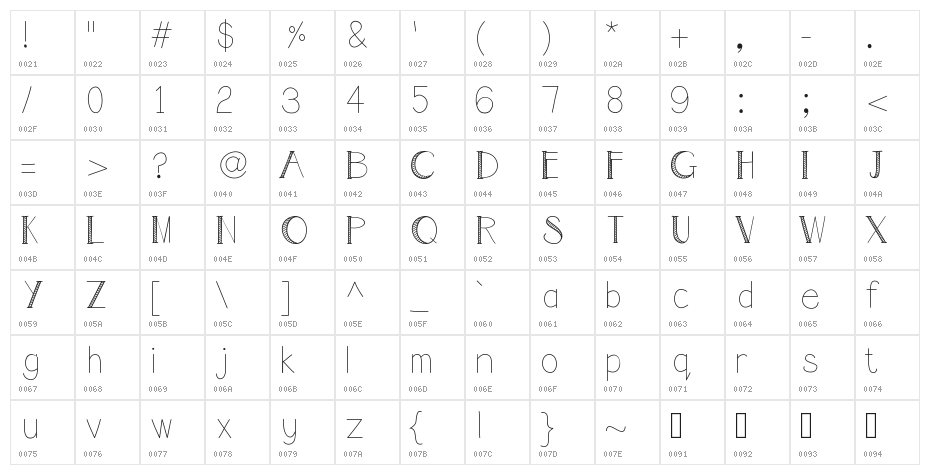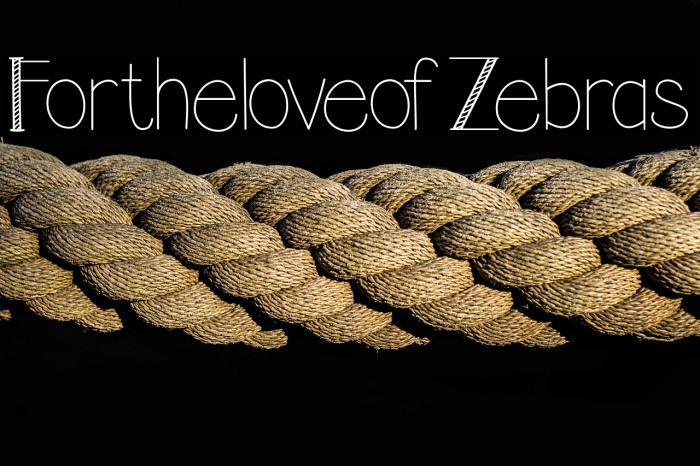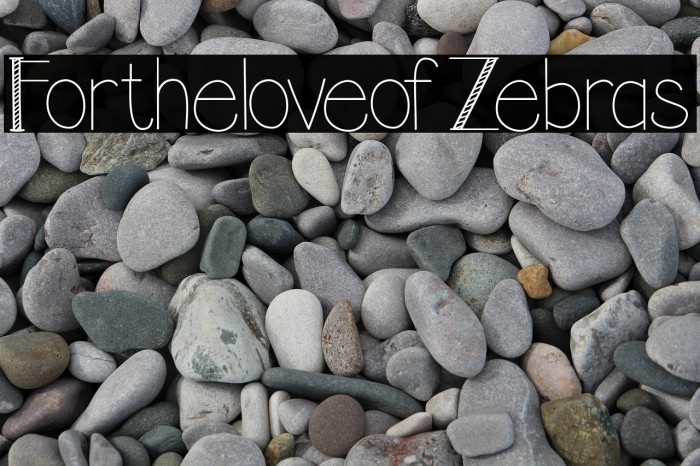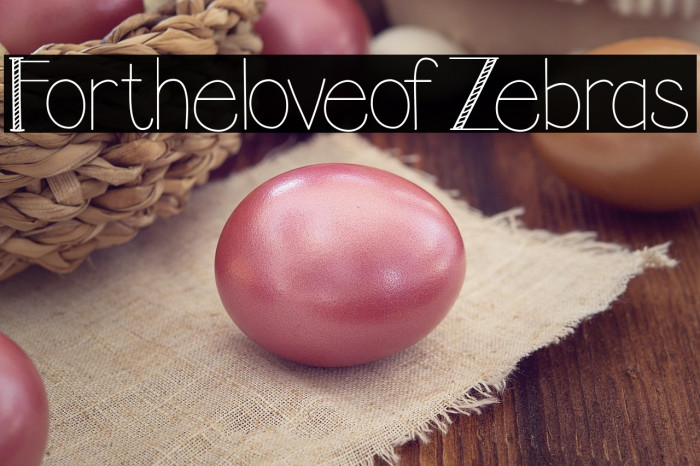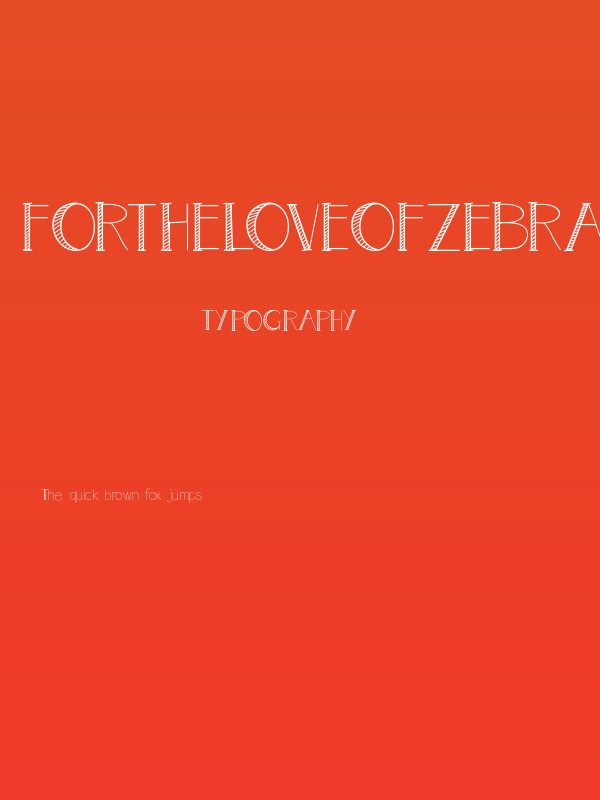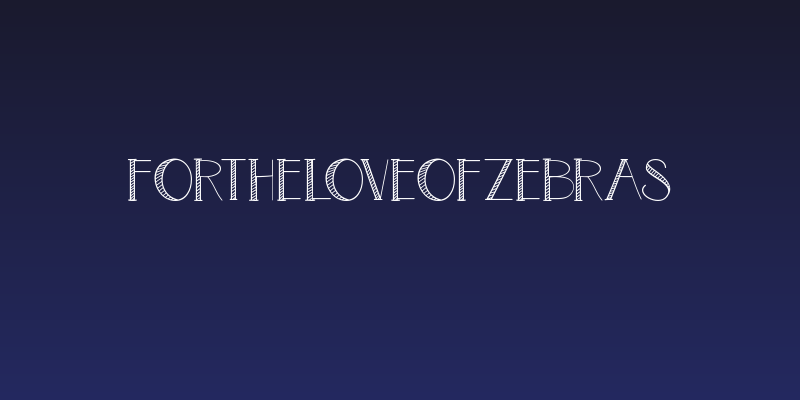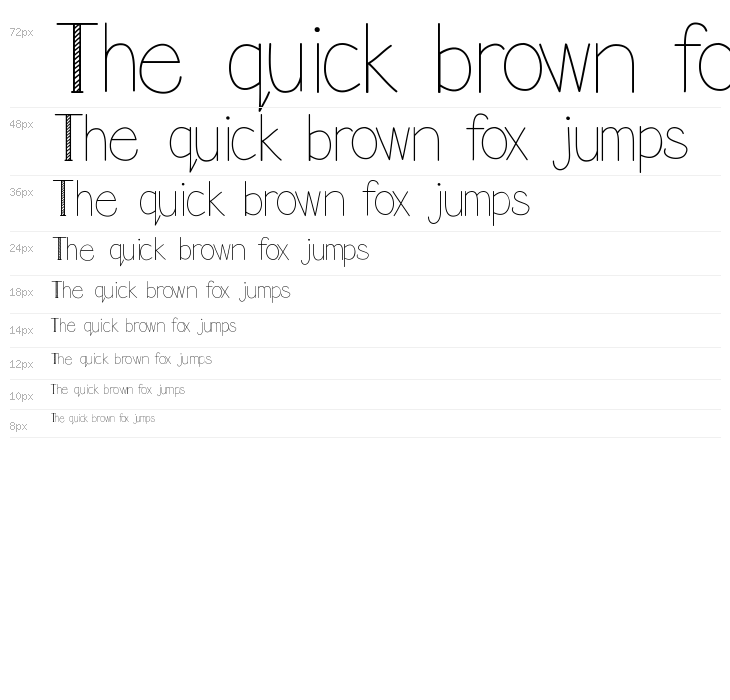
FortheloveofZebras Font
FortheloveofZebras Description
This font features a playful and creative design with a hand-drawn aesthetic. The uppercase letters have a unique striped pattern, adding a decorative touch that stands out. The lowercase letters are more minimalist, with clean lines and a modern feel. The numerals and special characters maintain this balance between decorative and simple, making the font versatile for various uses. The overall style is whimsical yet sophisticated, suitable for projects that require a touch of personality and flair.
Overall StyleWhimsical
Proposed ProjectsIdeal for children's books, creative branding, playful posters, and artistic invitations.